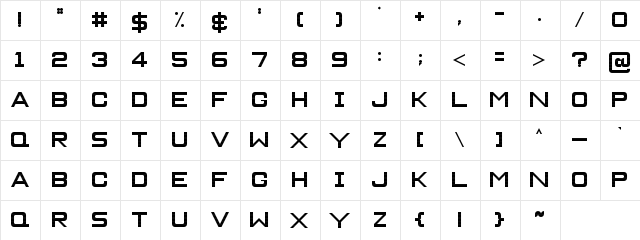
1971 Regular
Design Context for 1971 Typeface
1971 offers clean, dependable letterforms without strong stylistic allegiance, making it a practical choice for designers who need flexibility.